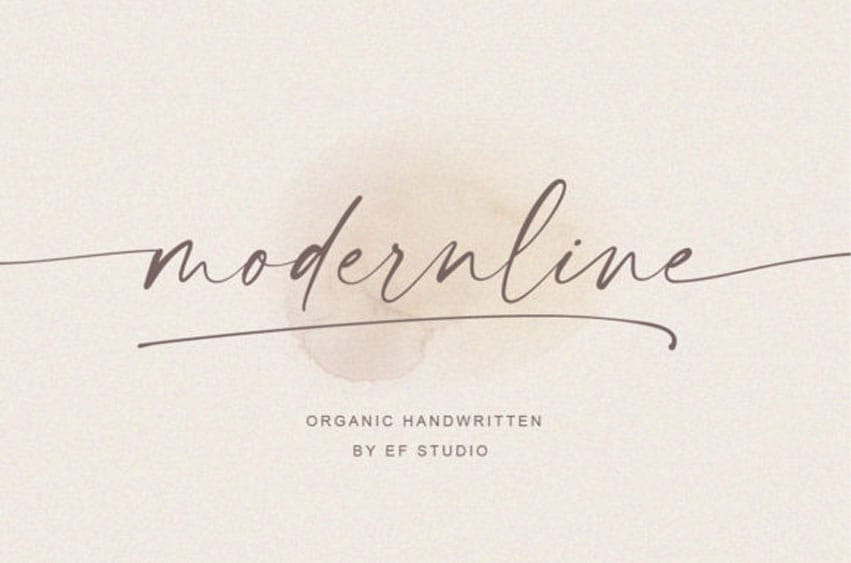
Modernline Font is the simplest definition of elegance. This handwritten font has a charming style and will look outstanding in any context, whether it’s being used on busy backgrounds or as a standalone headline.
Modernline is PUA encoded, which means you can access all of the glyphs and swashes with ease! It features a varying baseline, smooth lines, gorgeous glyphs, and stunning alternates.